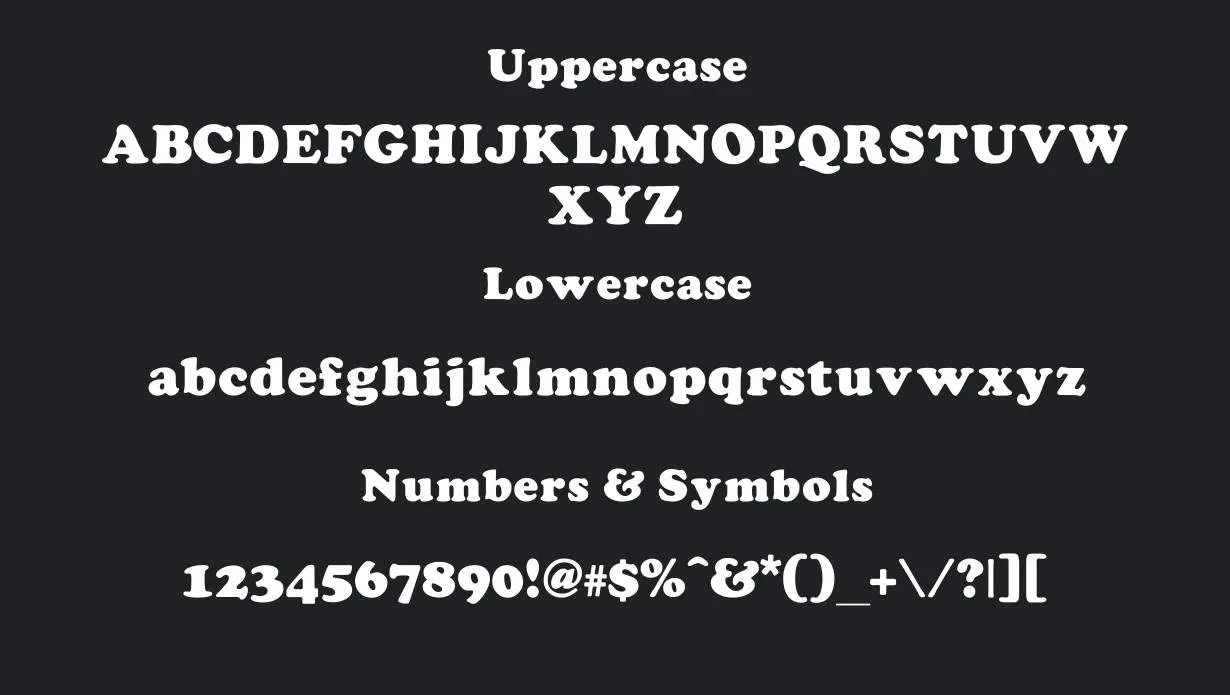
Cooper Regular Font offers a clean and straightforward look with a touch of modernity.
It’s a dependable choice for various design applications, such as business cards, web content, or product packaging.
Cooper Regular Font ensures that your message is delivered with clarity and a contemporary edge.
Cooper Regular Font Family
| Name | Cooper Regular Font |
| Designer | Oswald Bruce Cooper |